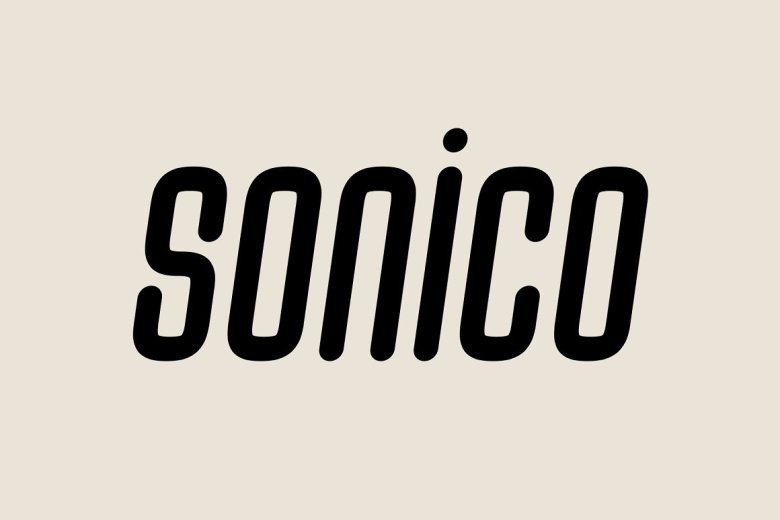
Sonico Font
Sonico is a font family stretching upwards and beyond. It supports 113 languages, features a total of 482 glyphs and includes an italicized version for each of the 5 weights.
Sonico Sans Serif Font Family